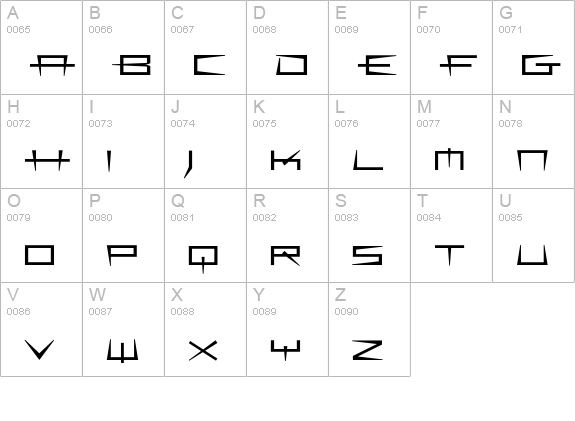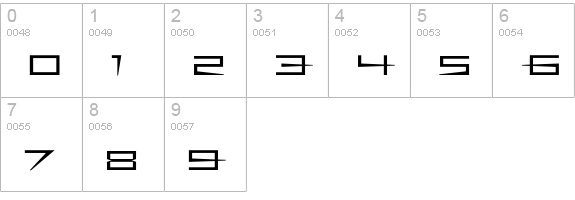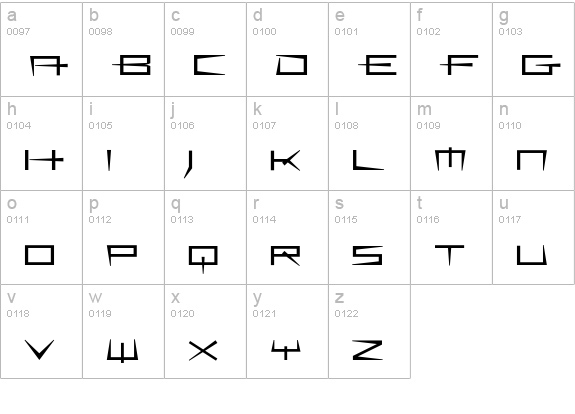
Spike-Regular is the standard, neutral variant in the Spike typeface family \xE2\x80\x94 well suited to general body text, paragraphs, and standard typographic work.
Spike-Regular font is a versatile and modern typeface that adds a touch of edgy sophistication to any design project. With its clean lines and sharp angles, this font exudes a sense of confidence and energy. This font is perfect for a variety of applications, from branding and logo designs to headlines and promotional materials. Its bold and distinct letterforms make a strong visual impact, while still maintaining legibility at various sizes. What sets Spike-Regular font apart is not only its striking design, but also the fact that it is free. Yes, you read that right! This font is freely available to download at FontsMarket.com. Whether you are a professional designer looking to add a unique flair to your work or a hobbyist seeking to elevate your personal projects, Spike-Regular font is a valuable asset that won't cost you a dime. With its extensive character set, including uppercase and lowercase letters, numerals, and punctuation marks, Spike-Regular font offers endless possibilities for creative expression. Its clean and modern aesthetic will surely captivate and engage your audience, leaving a lasting impression. So why wait? Don't miss out on the opportunity to enhance your designs with the bold and captivating Spike-Regular font. Visit FontsMarket.com today and download this incredible font for free. Elevate your design game and make a statement with Spike-Regular font.